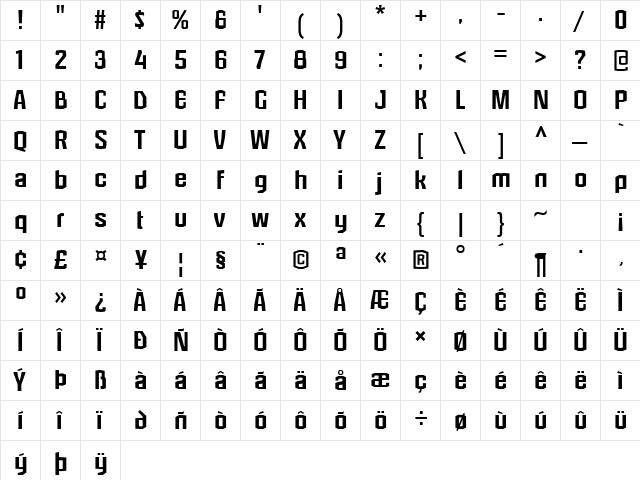
Laserjerks Regular
Design Context for Laserjerks Typeface
Laserjerks offers clean, dependable letterforms without strong stylistic allegiance, making it a practical choice for designers who need flexibility.